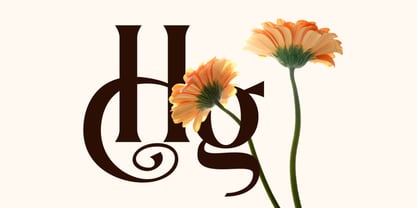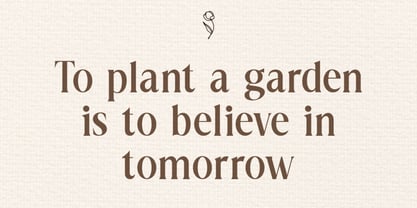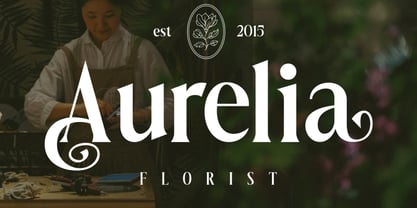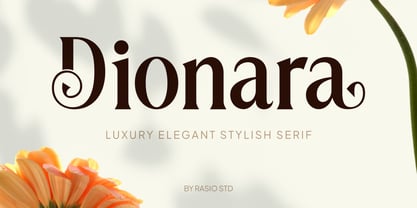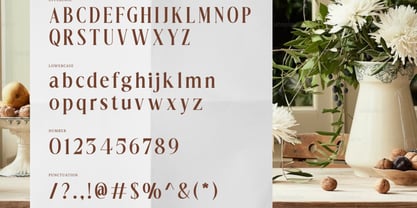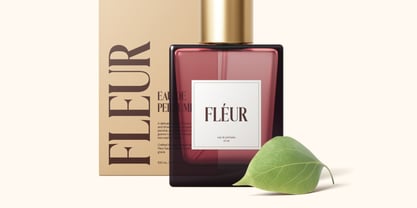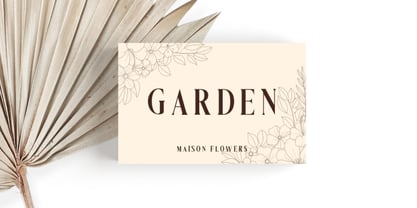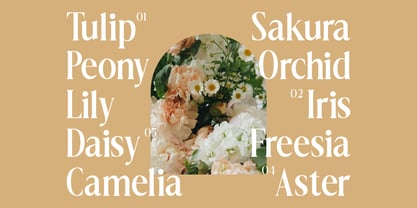
Dionara
by Rasio Studio
The Dionara Font Family was designed by Fajar Indra and published by Rasio Studio. Dionara contains 1 styles. More about this family
Dionara is a refined and graceful serif typeface that blends modern luxury with timeless sophistication. Featuring distinctive high-contrast strokes and elegant curvatures, Dionara radiates style and confidence. Its decorative swirls and balanced proportions make it ideal for branding, editorial layouts, fashion designs, and high-end packaging. This typeface brings a sense of calm luxury and professional refinement to every composition. Includes uppercase, lowercase, numerals, and punctuation. Relevance and Use Cases is perfect for luxury branding, fashion editorials, product packaging, elegant invitations, magazines, and creative campaigns. Dionara enhances visual storytelling with its poised and timeless design, making it a versatile serif choice for modern elegance.
Designers: Fajar Indra
Foundry: Rasio Studio